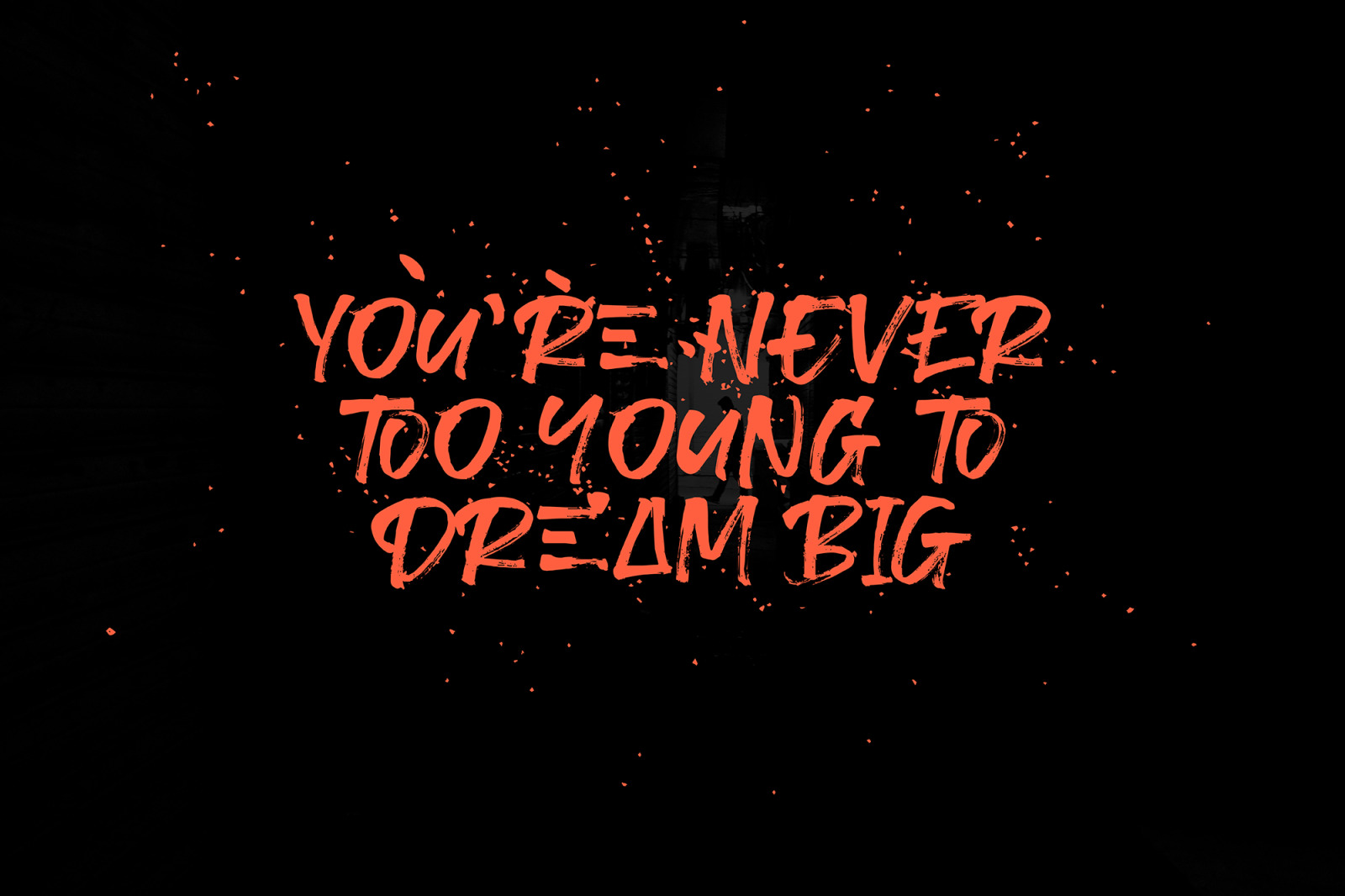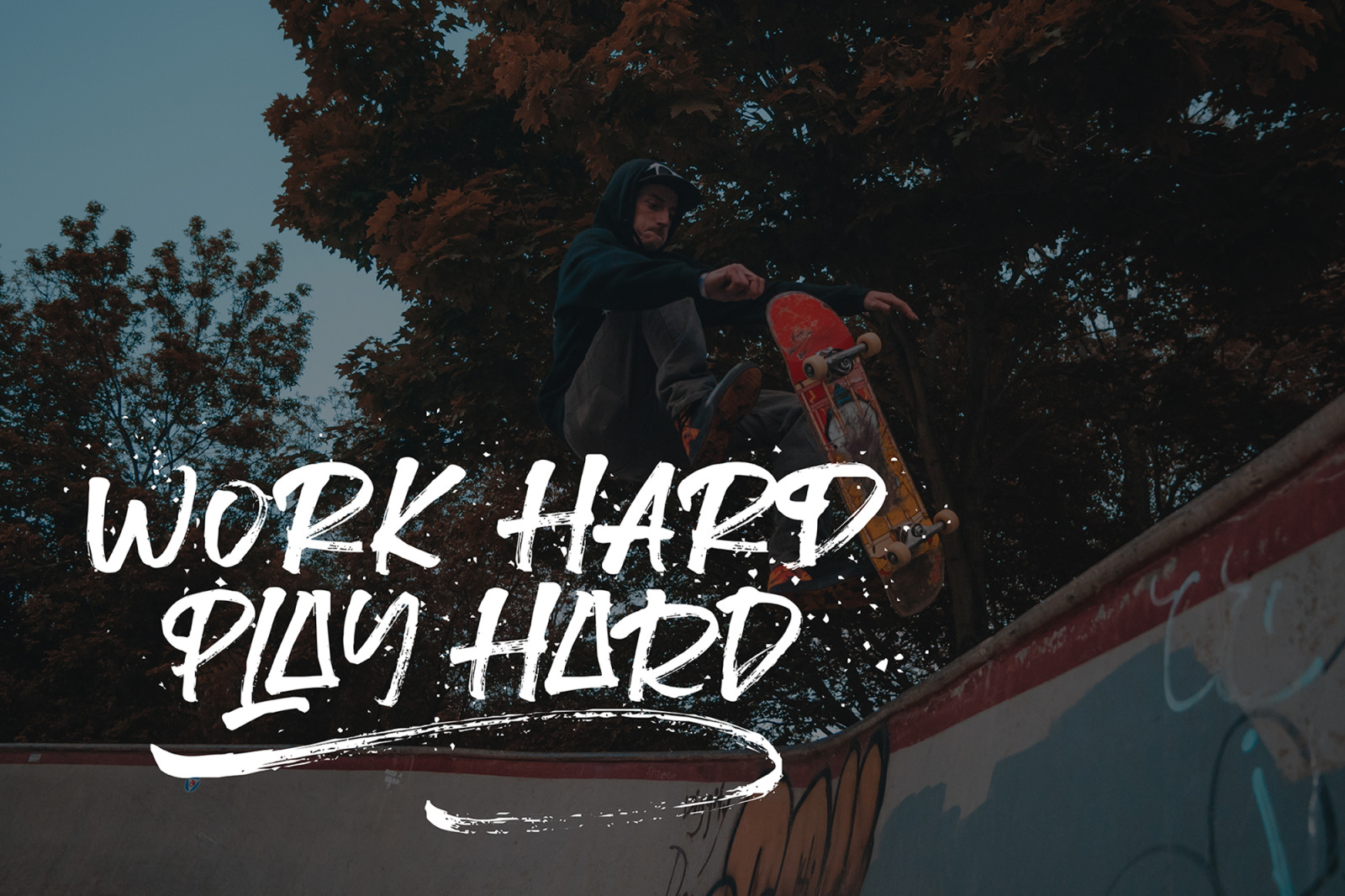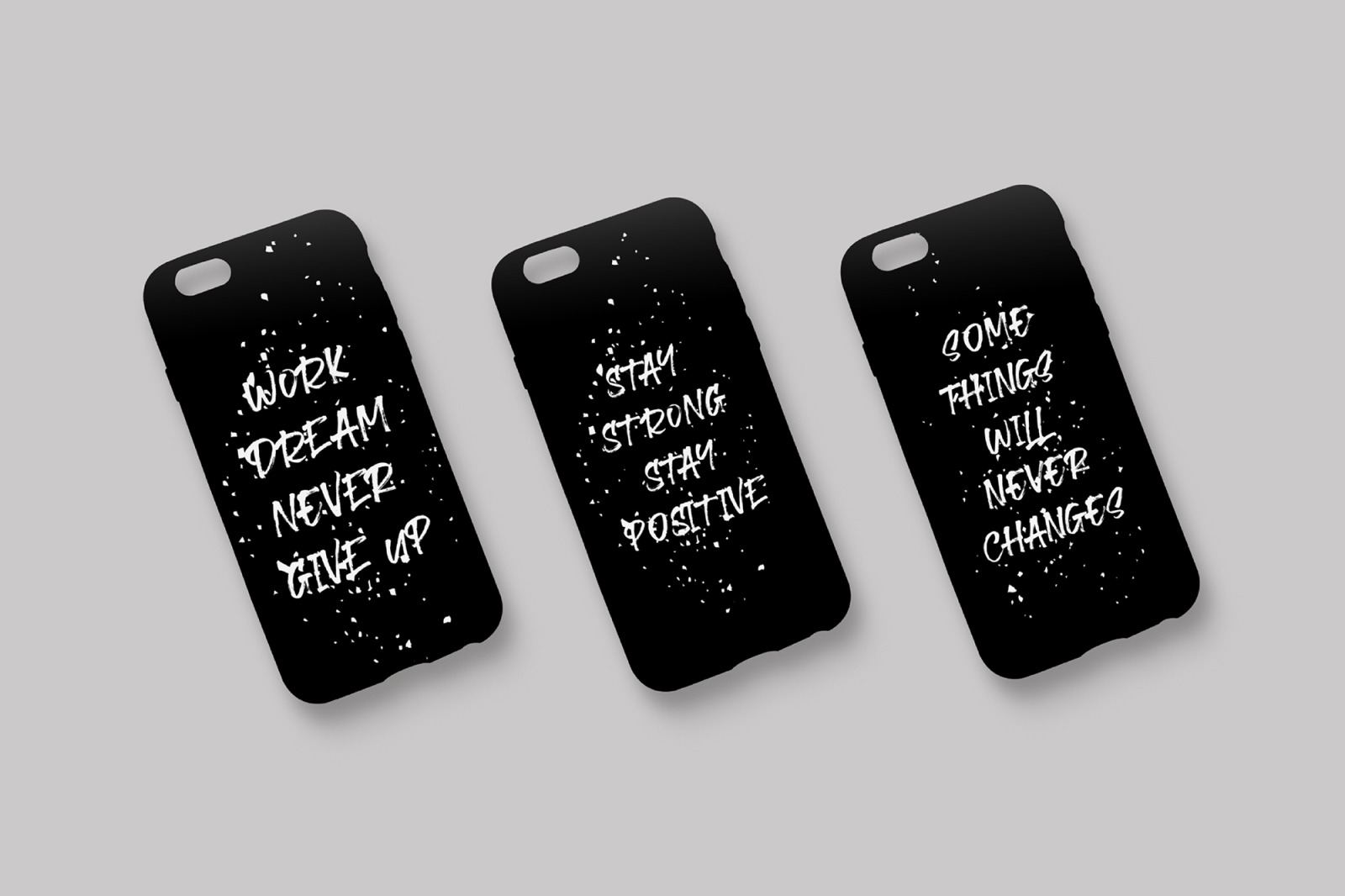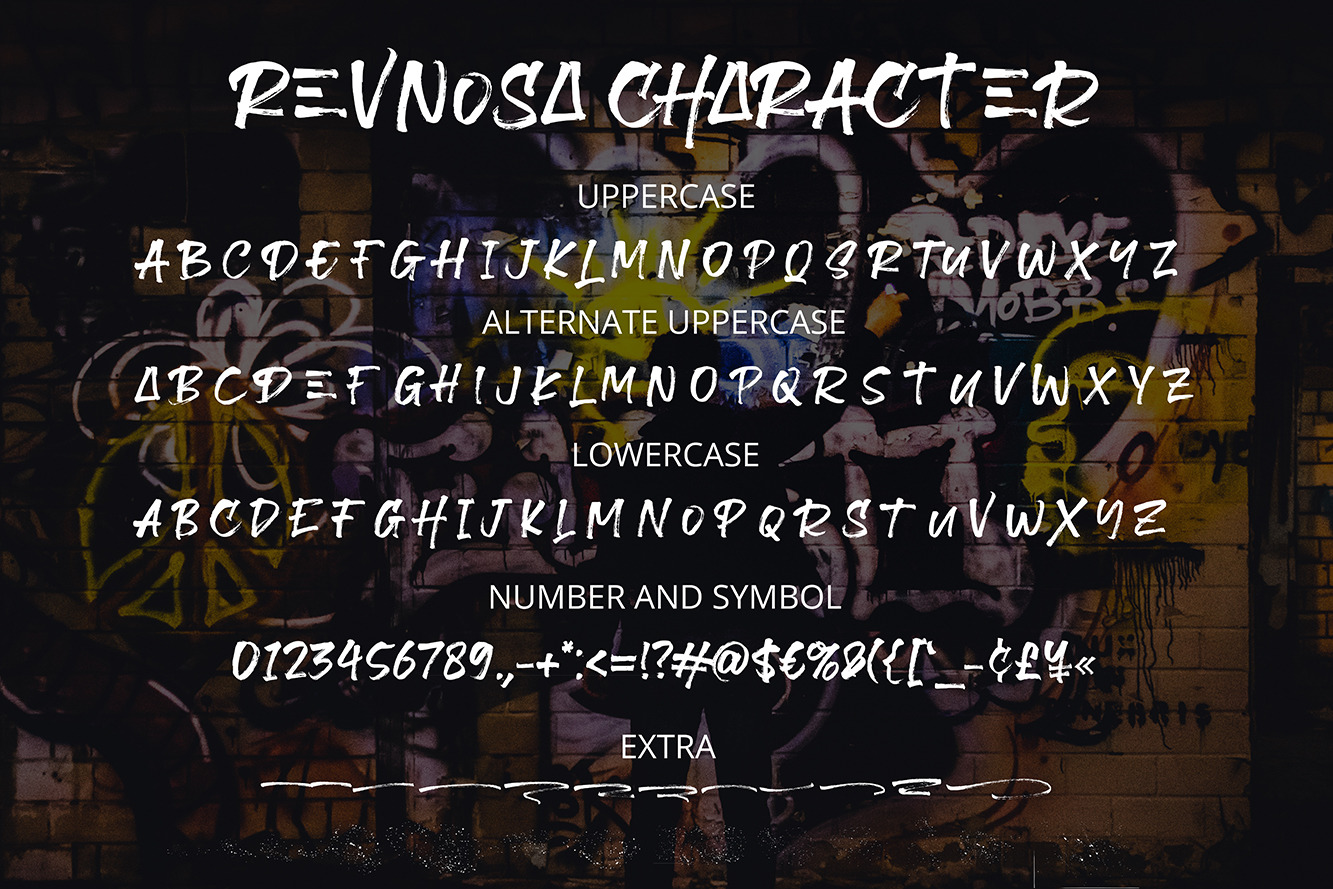
Revnosa Urban Brush Font
A rustic, dapper handwritten font with a personal charm. With quick dry strokes and an urban style. Revnosa font is perfect for display projects such as quoted text, product name, t-shirt, street-style, product packaging and much more. It's also perfect for stylish text overlay to any background image.
Main Features:
+ Uppercase & Lowercase letters
+ Numbering and Punctuation
+ Alternate Uppercase
+ Extras